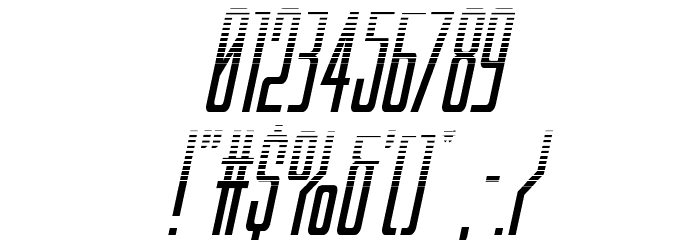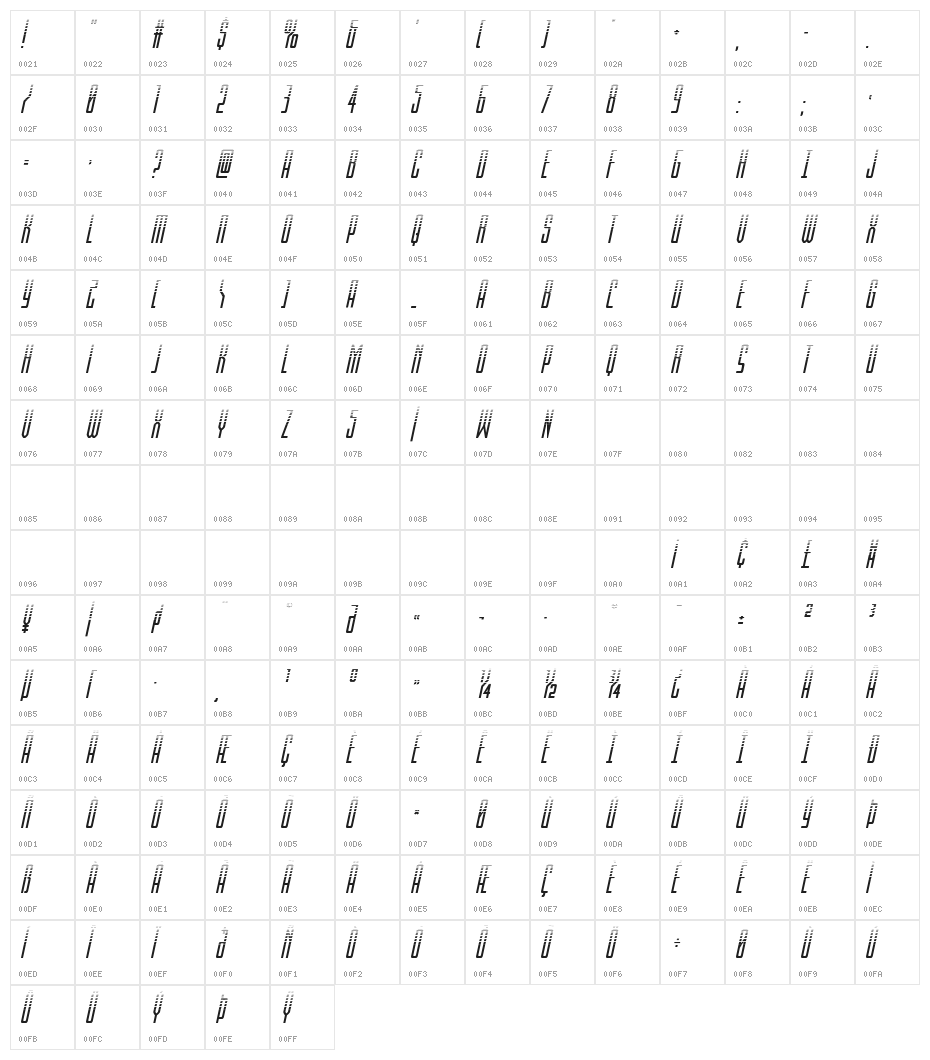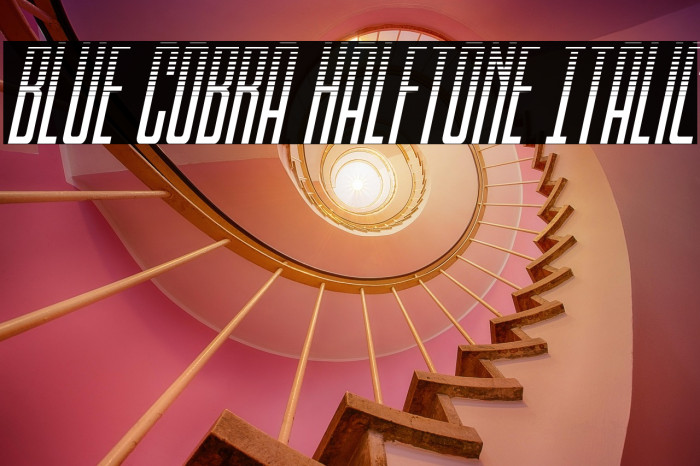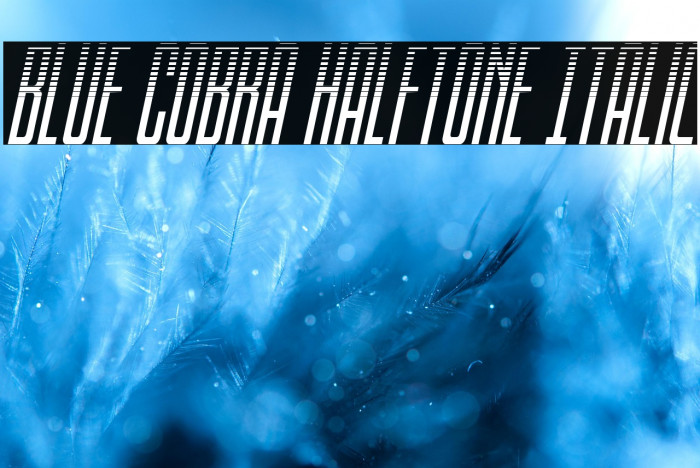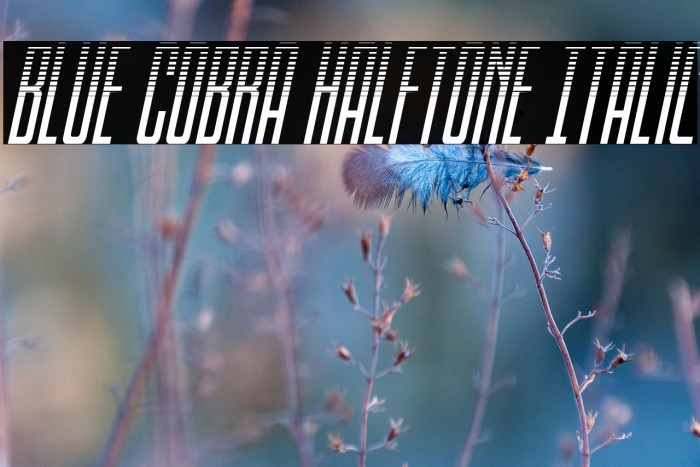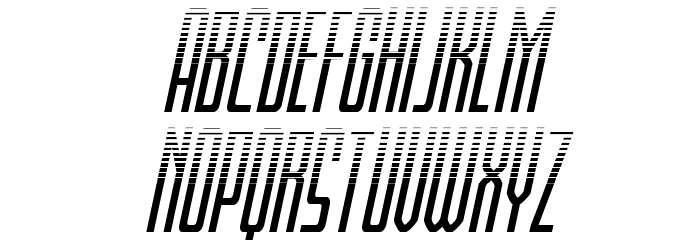
Blue Cobra Halftone Italic Font
Blue Cobra Halftone Italic Description
This font features a dynamic and modern design with a halftone effect that gives it a unique, textured appearance. The characters are italicized, adding a sense of motion and speed, which is further emphasized by the slanted lines and sharp angles. The uppercase and lowercase letters maintain a consistent style, with elongated forms and a futuristic aesthetic. The numbers and special characters follow the same design principles, ensuring uniformity across all glyphs. This font's distinctive look makes it ideal for projects that require a bold and eye-catching typeface.